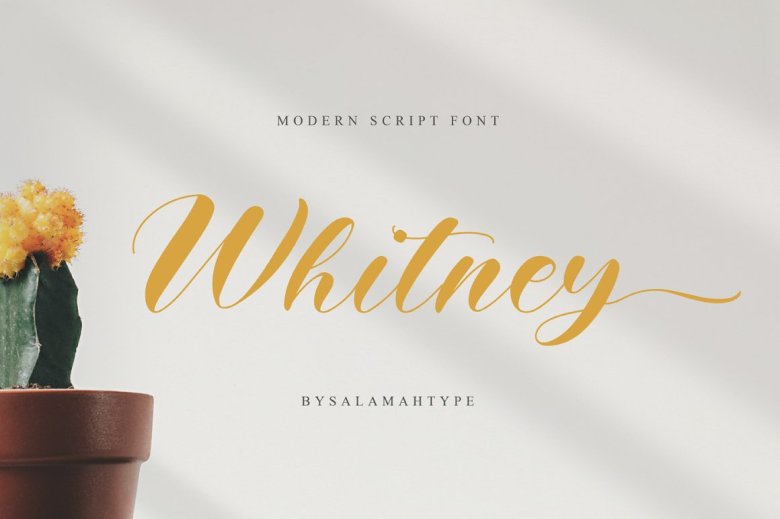
Whitney Font
Whitney Font is a Modern calligraphy and beautiful handwritten script font. It is great for branding projects, logo, wedding designs, social media posts, advertisements and product packaging. It’s a perfect fit for all designer needs!
Whitney Calligraphy Script Font